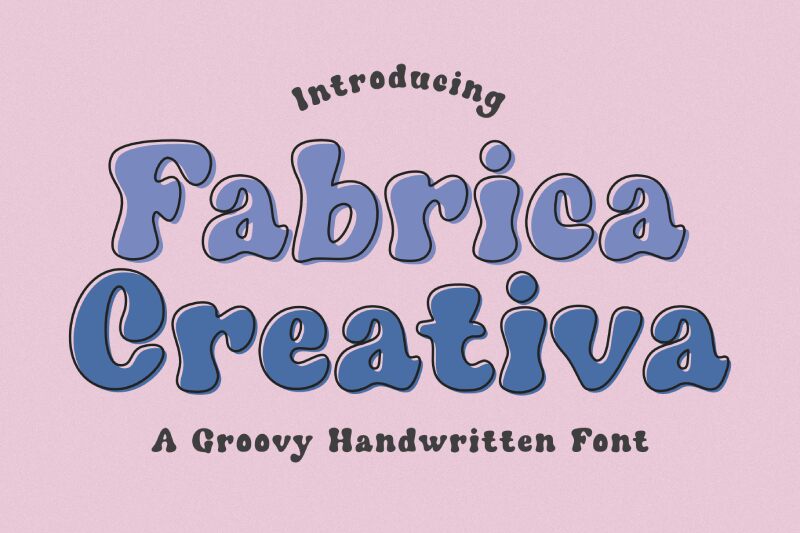
Fabrica Creativa
Fabrica Creativa, designed by the talented Jimtype Studio, is an extraordinary display font that exudes a groovy vibe with its handwritten touch. Its extra-bold weight adds intensity to any project, making it perfect for eye-catching headlines, bold logos, and captivating posters. Whether you're designing retro album covers, funky party invitations, or trendy advertising campaigns, Fabrica Creativa will infuse your work with a unique and energetic flair. Let this font unleash your creativity and bring a touch of grooviness to your next artistic endeavor.